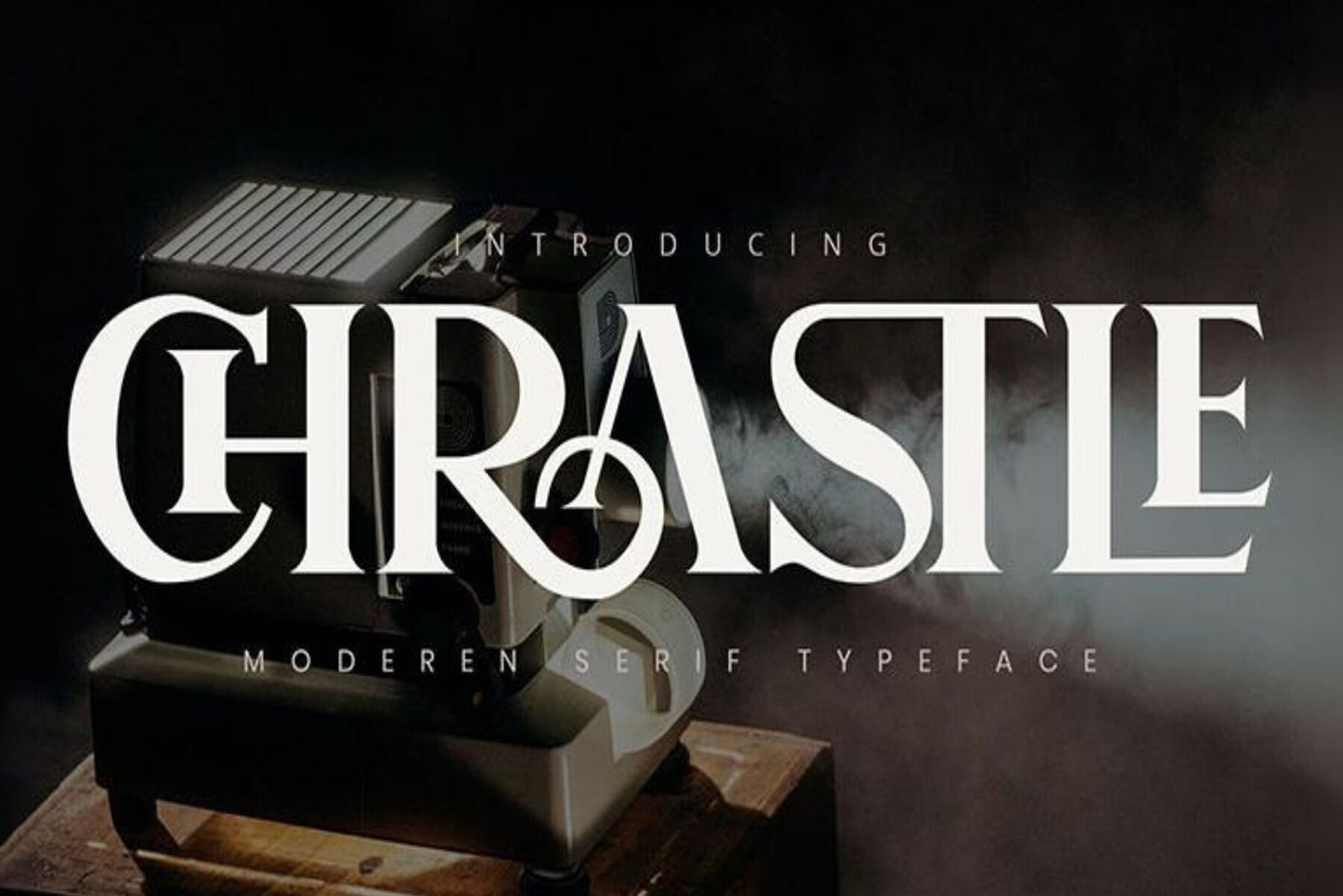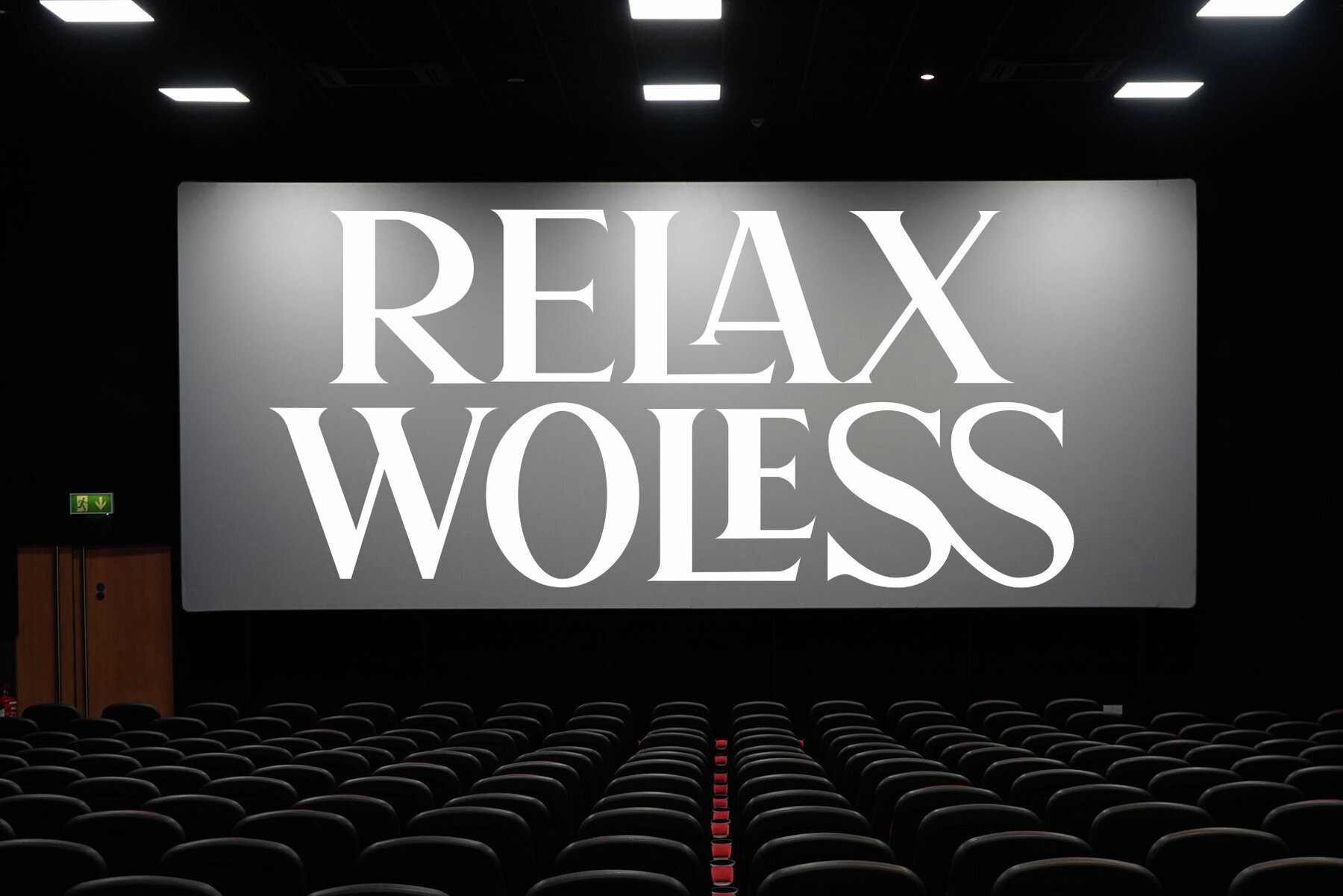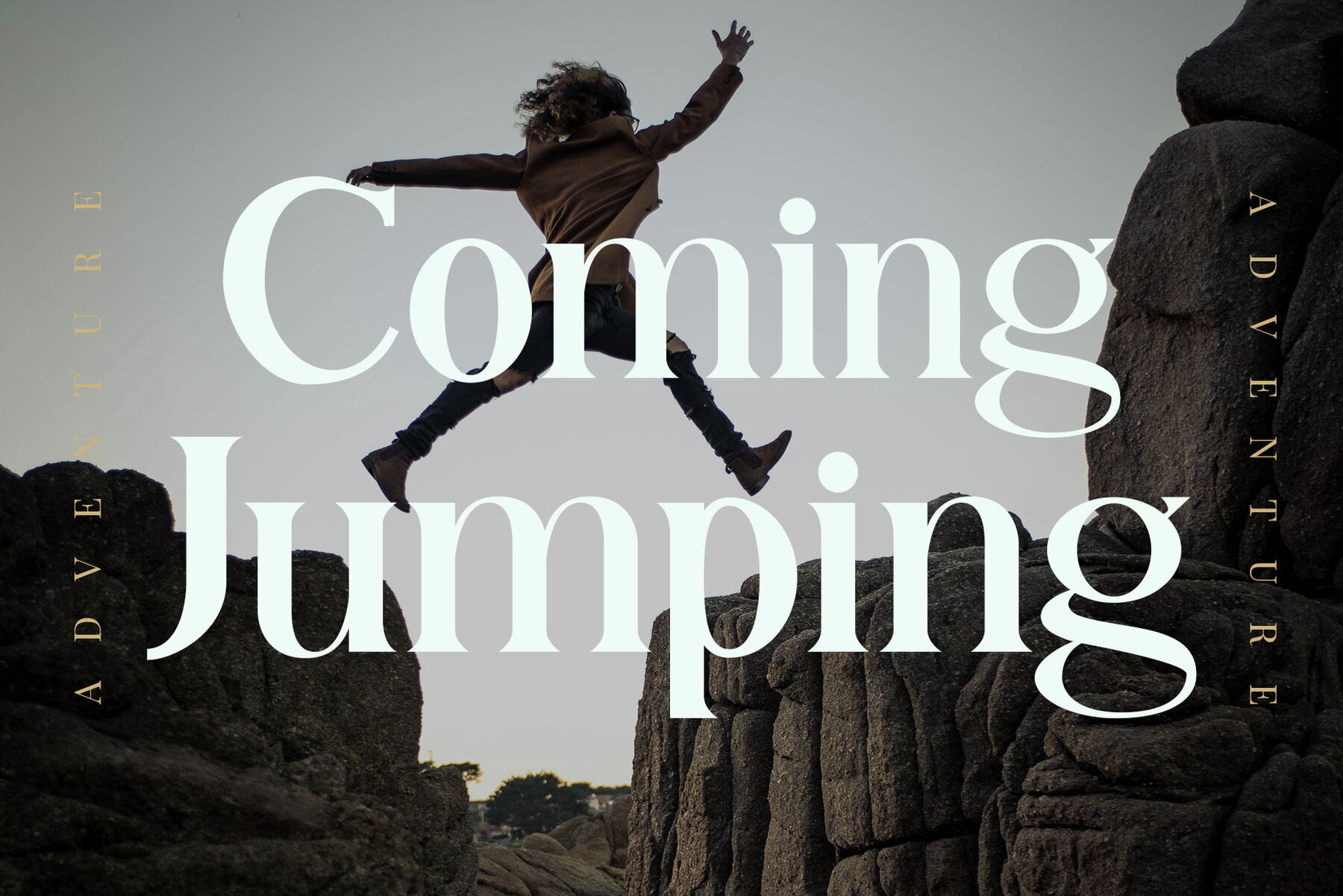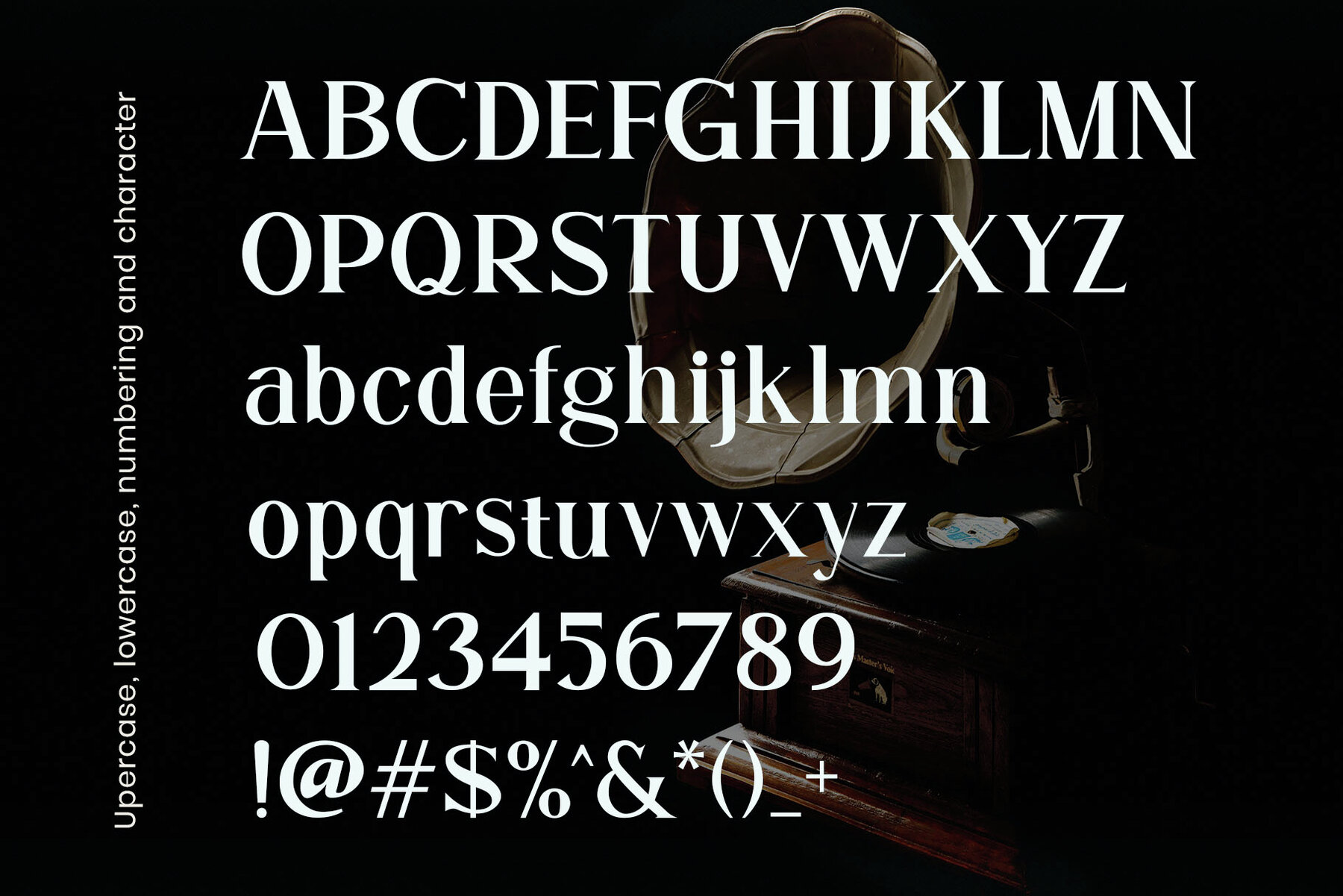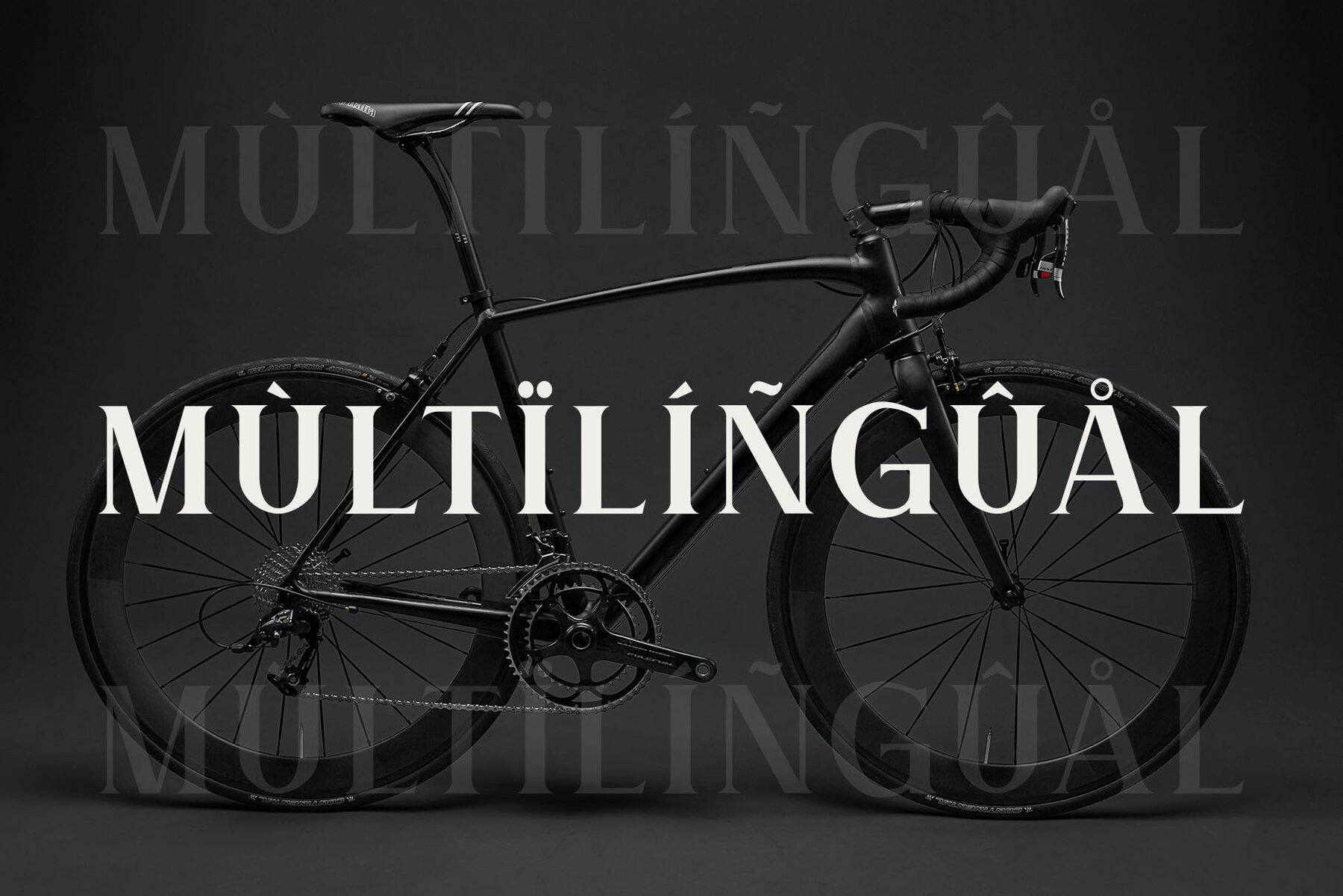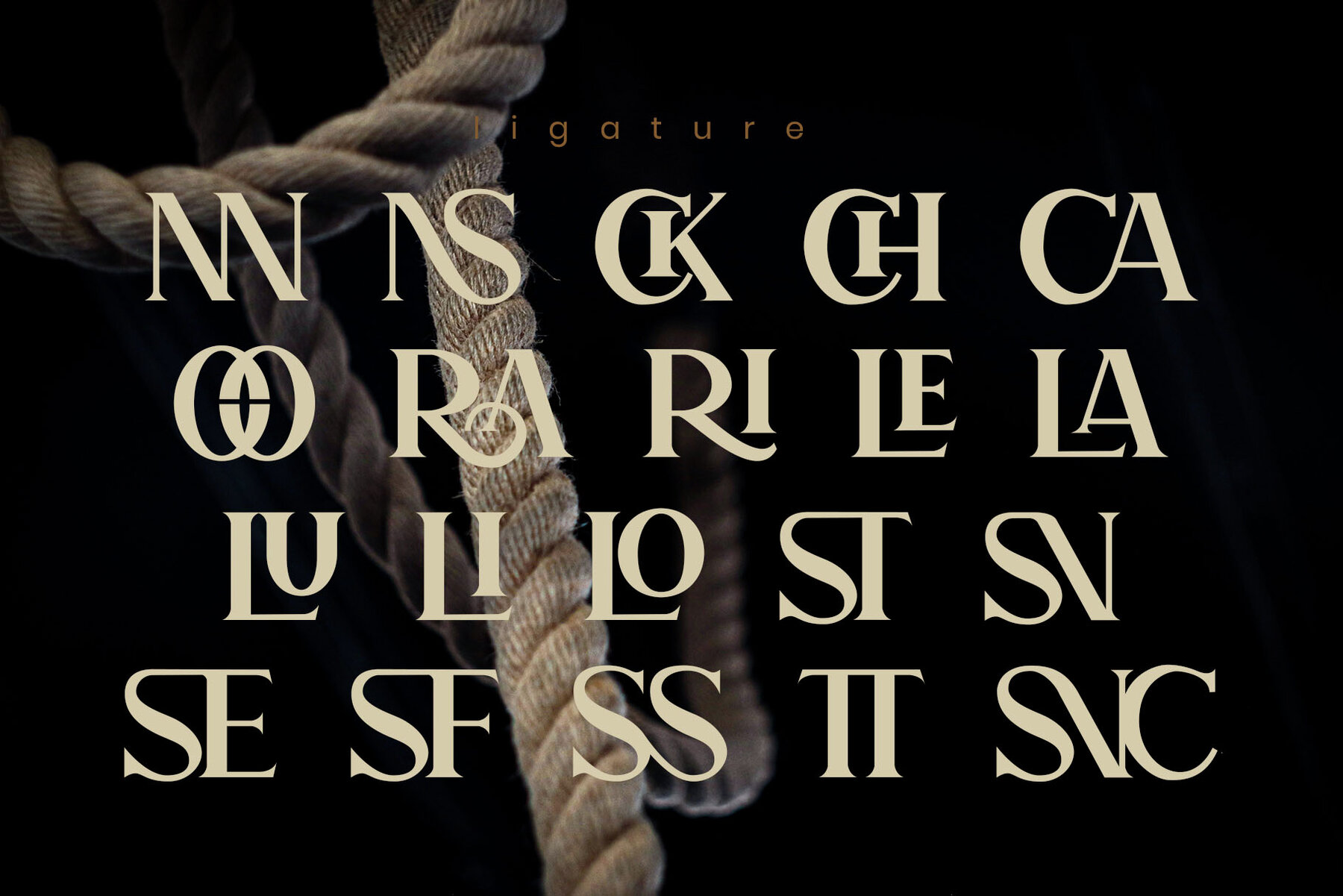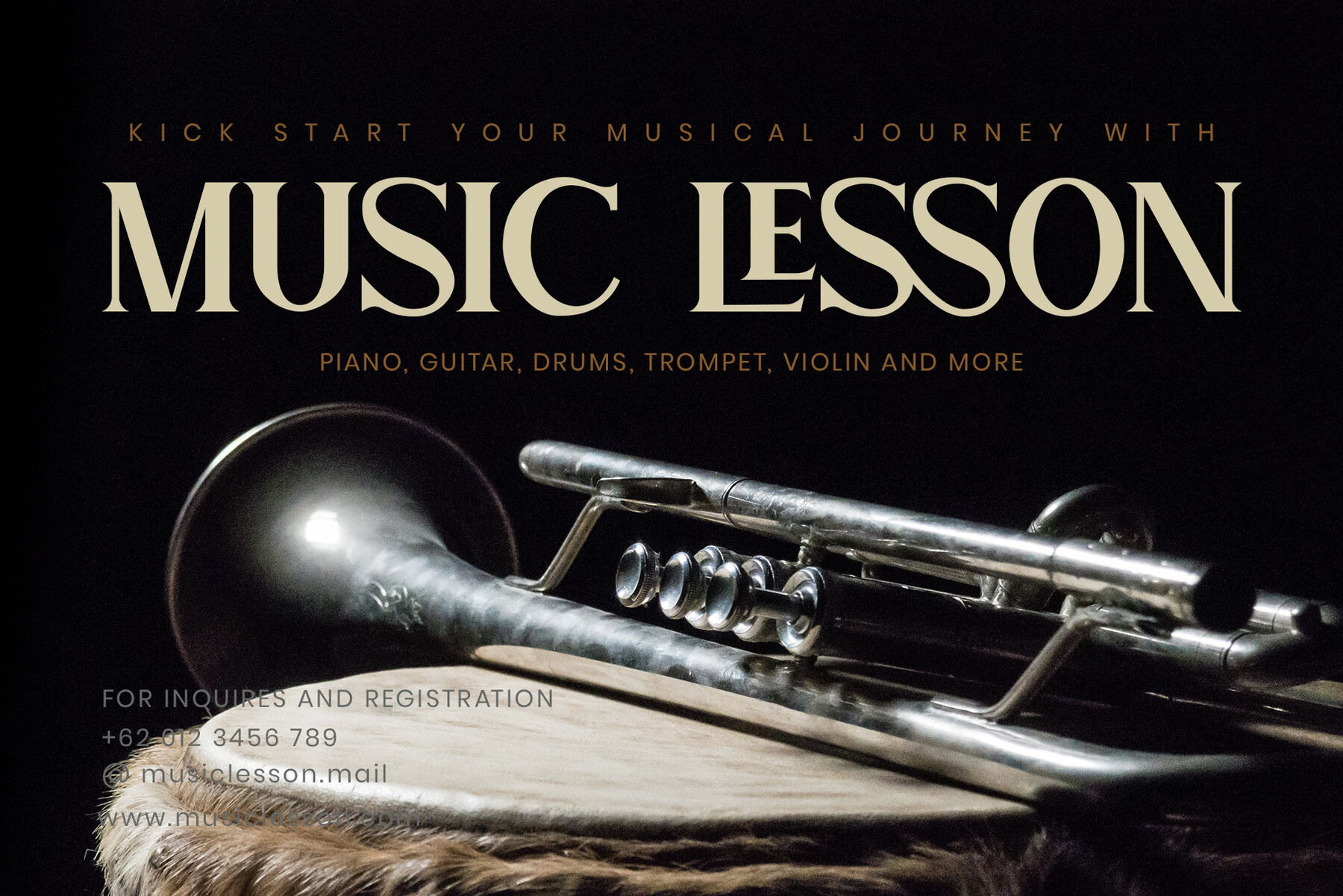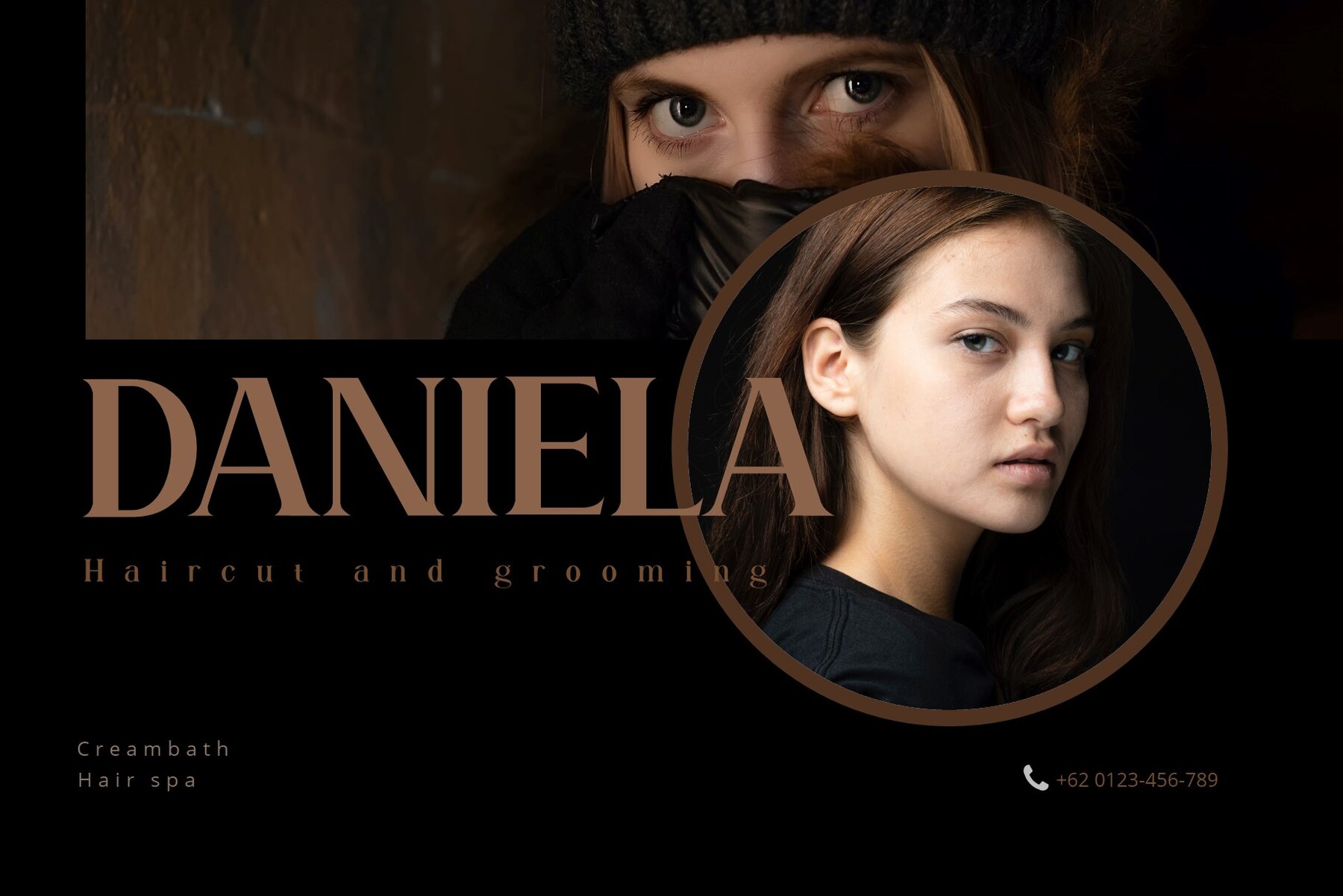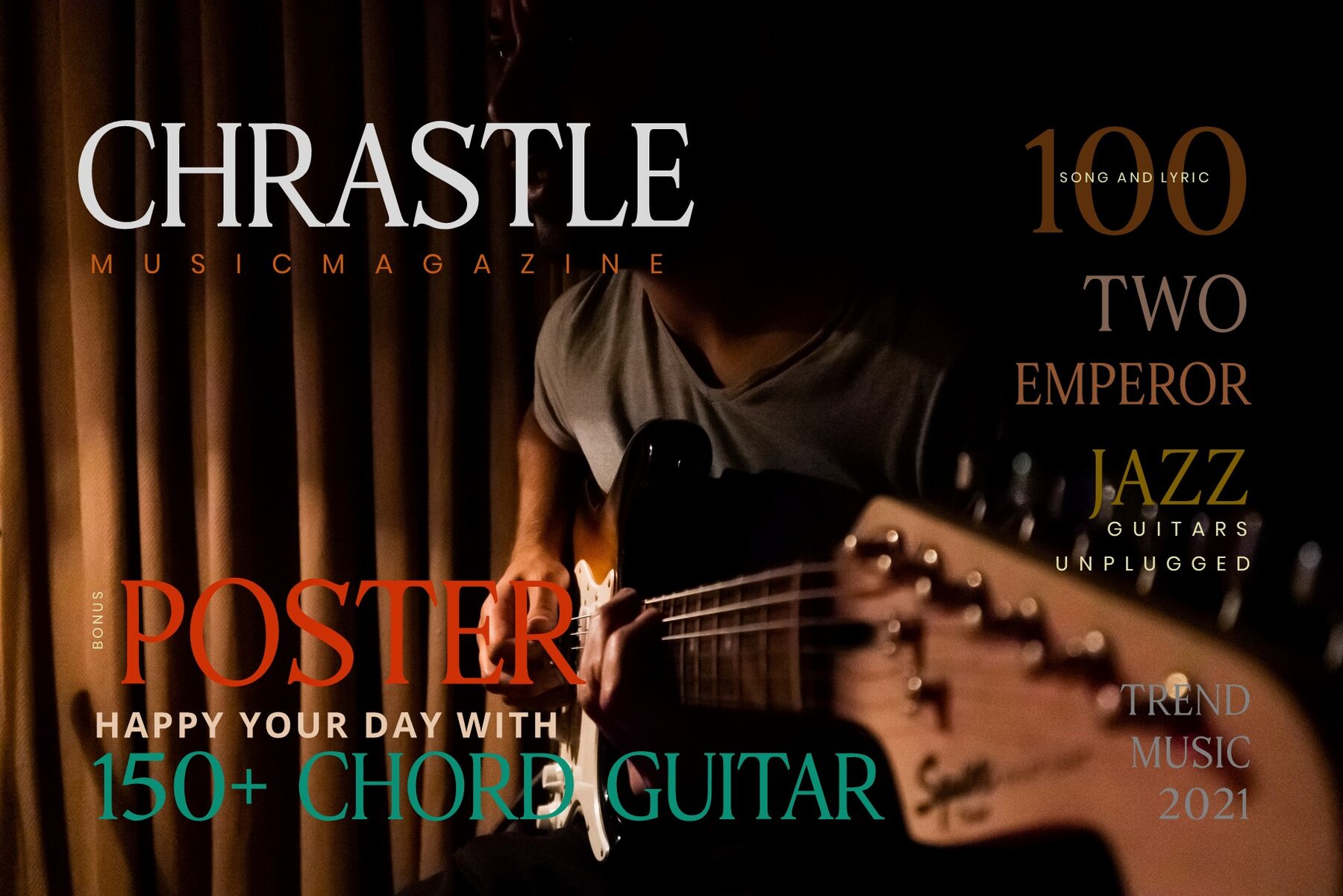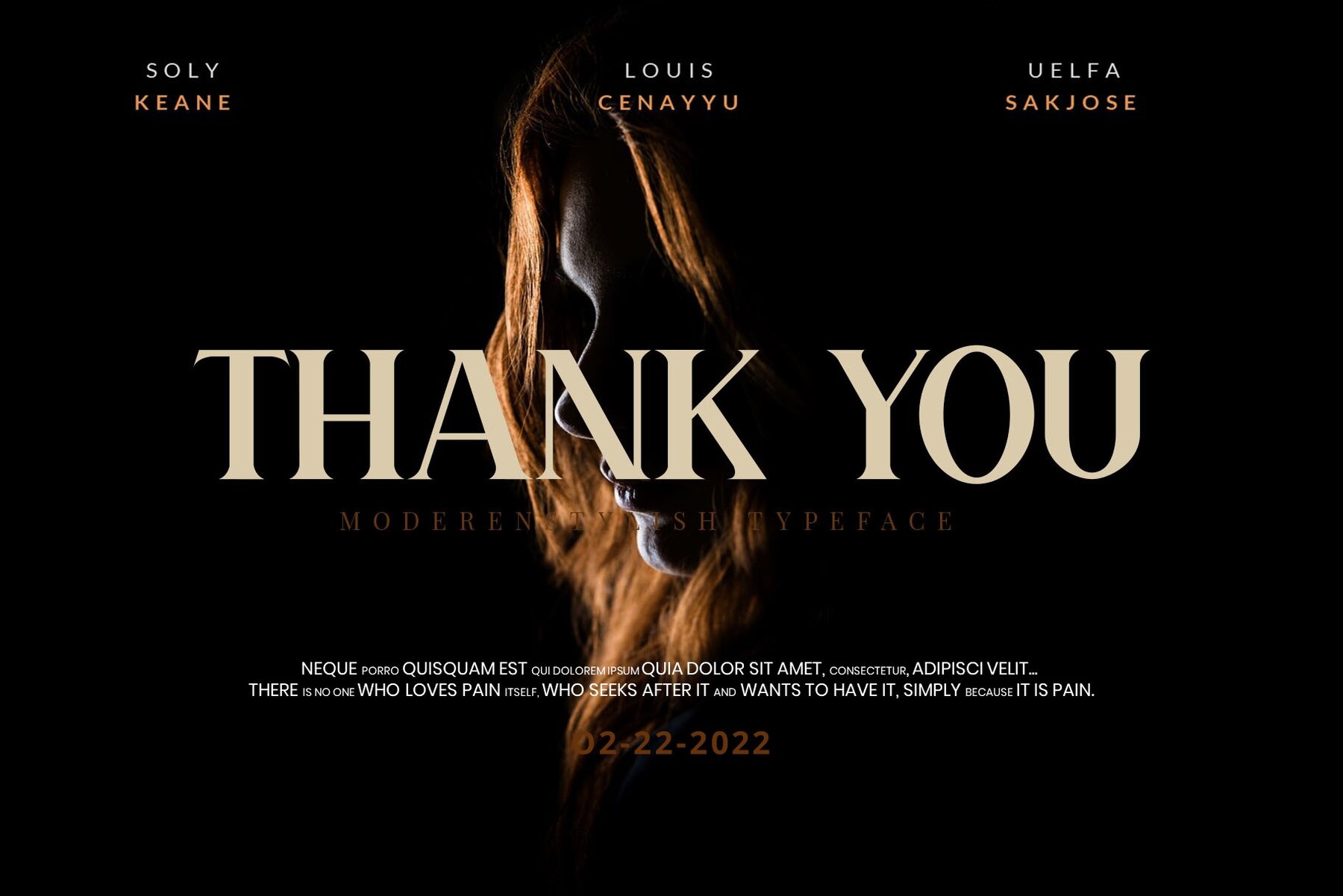
Chrastle Font
Chrastle Regular
Chrastle is a bold and chic serif font that effortlessly injects style into your projects. Featuring sophisticated design elements, this font enhances the visual appeal of your creations. Its distinguishing bold and stylish characteristics make Chrastle a standout choice for various creative endeavors. The font is PUA encoded, offering easy access to all glyphs and swashes, adding flexibility and convenience to your design workflow.Chrastle: Bold and Chic Serif Font